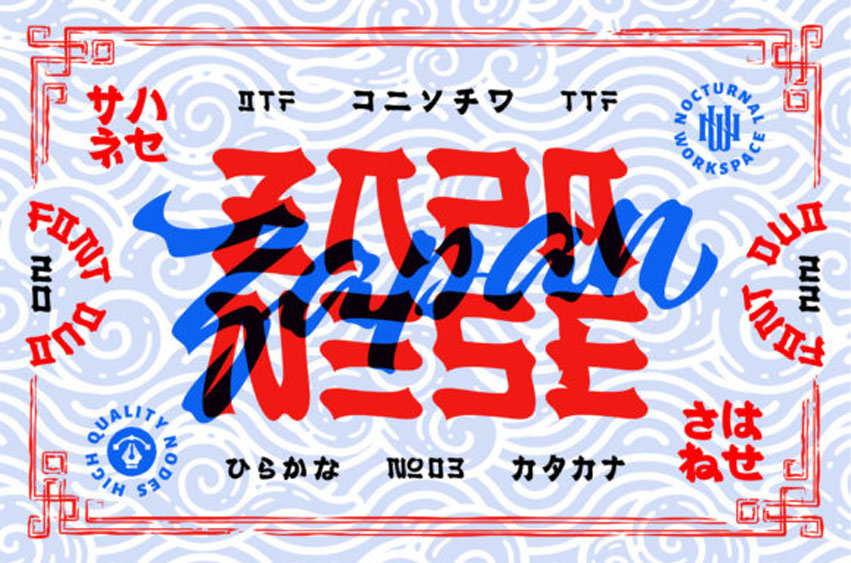
Zapanese Font is a cool and retro styled display font.
It is suitable for logotype, headline font, in corporate identity, brand identity, apparel industry, poster, music, movie, game, magazine, book, comic, cartoon, YouTube, Instagram, website, or any of your creative design projects.